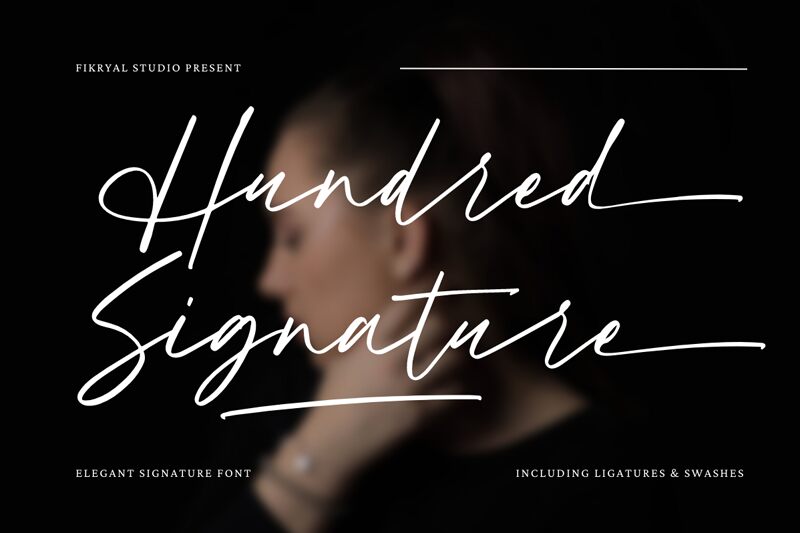
Fikryal Studio’s Hundred Signature font is an embodiment of handwritten styles coupled with lightness and a sense of space. This free personal use font is suave and sweet just like genuine signatures penned in thin liquid, which add individuality to your works. With its natural flow, Hundred Signature is best for branding, invites or any other project that requires a gentle touch.
Hundred Signature has a unique handwriting style that captivates readers while remaining legible. Designers can get this free typeface for designing company logos, social media graphics or wedding invites where some taste of classiness is desired. Be it low-key elegance or relaxed grandeur; the Hundred Signature font adds creativity to many environments through its distinctiveness and artistic originality.